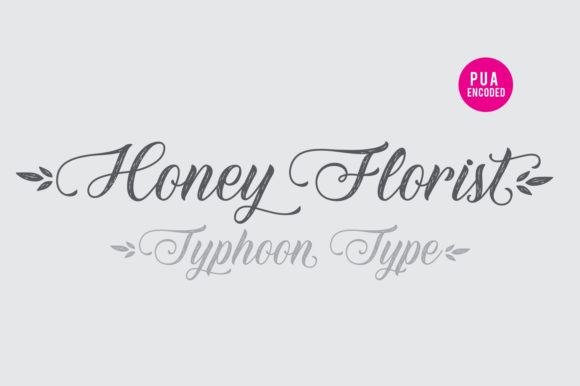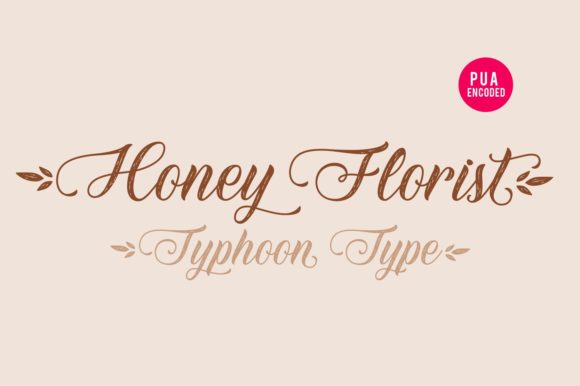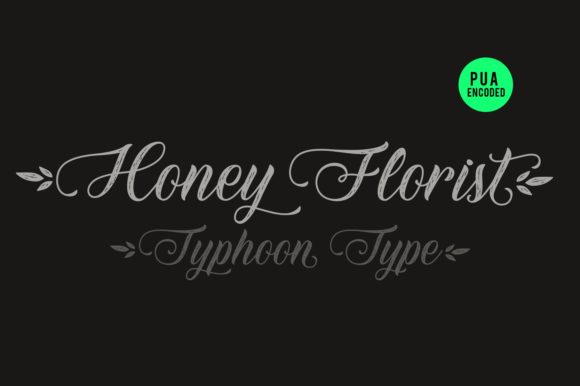
Honey Florist Font
About Honey Florist Font
Honey Florist is a delicate and sweet script font, that looks perfect on logos, name tag, advertising, product packaging, clothing, social media & greeting cards. This font is PUA encoded, which means you can access all of the glyphs and swashes with ease!